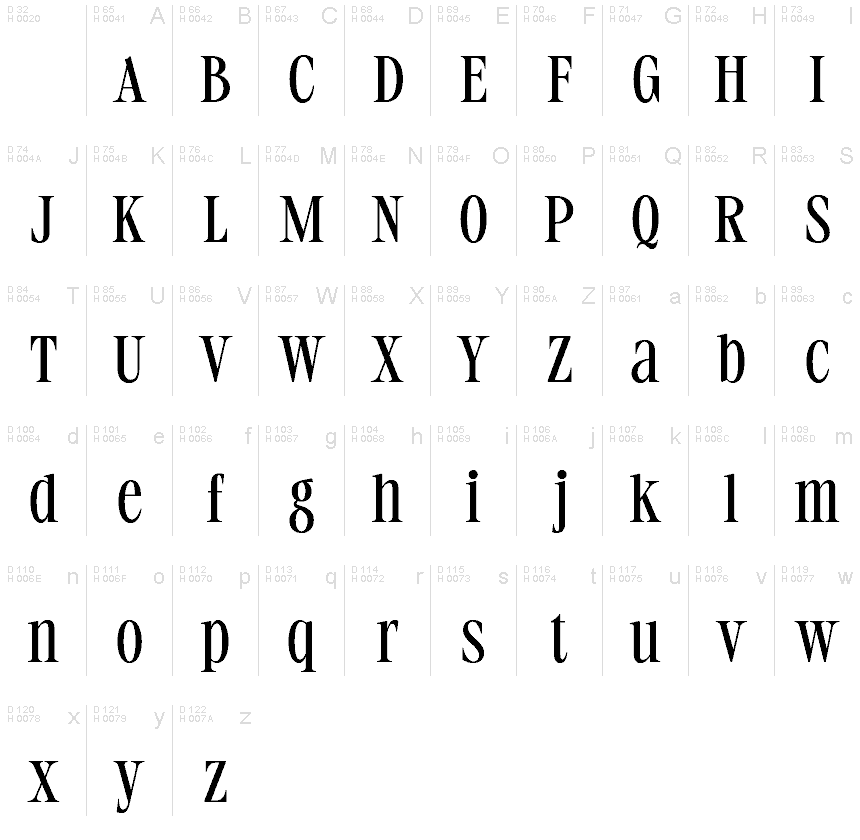
CS Adley Regular Demo
CS Adley font by Craft Supply Co. is an elegant condensed serif font that combines beauty and modernity in its design. Enjoy this sophisticated free serif font with high contrast for wonderful outlines and a classic presentation of texts.